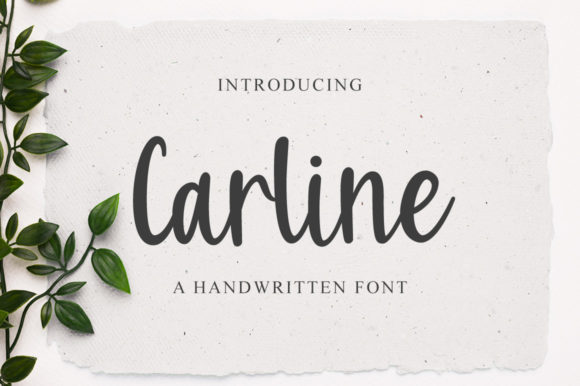
Behold, the Carline Script Font—an enchanting symphony of delicate strokes, flowing curves, and graceful lines, designed to make your designs dance with elegance and charm. Step into a world of visual delight, where every letter is a work of art, meticulously crafted to evoke a sense of timeless beauty.
Carline is more than just a font; it's an invitation to embark on a journey of creativity, where your imagination takes center stage. Whether you're crafting a heartfelt wedding album, designing an alluring logo, or creating captivating social media graphics, this font will elevate your work to new heights of sophistication.
With its graceful swashes and perfectly balanced characters, Carline effortlessly matches a wide range of design styles. Its versatility makes it a perfect choice for everything from elegant invitations to whimsical posters. Simply let your creativity flow, and Carline will do the rest, transforming your words into captivating works of art.
But Carline is not just about beauty; it's also incredibly user-friendly. It's PUA encoded, which means accessing all the glyphs and swashes is as easy as a click. No need for complicated software or technical know-how. Just let your imagination soar and watch Carline bring your designs to life.
So, why settle for ordinary when you can have extraordinary? Choose Carline Script Font today and unlock a world of creative possibilities. Let your designs blossom with elegance, charm, and a touch of magic. Carline is waiting to take your projects to breathtaking new heights.